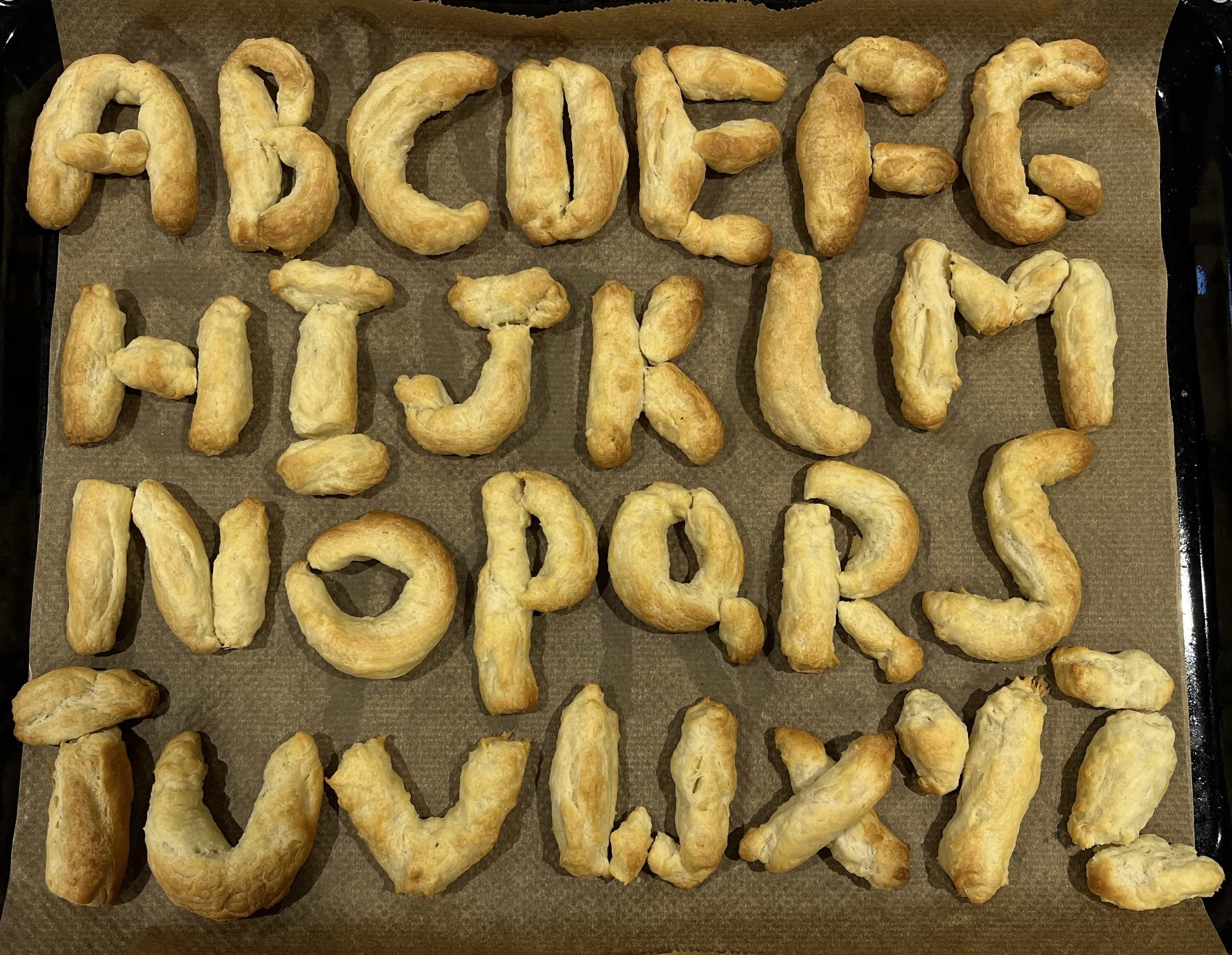
A font inspired by the bakers process:‘Bakers Dozen’ explores the question; “what makes a space, a space?” and more importantly, “What makes a bakery, a bakery?”. The baked goods you find inside, are what solidify the space. Inspired by South-Londons’ ‘Toad Bakery’, I wanted my typeface to highlight the importance of what happens behind the scenes in bakeries. Watching and learning from the processes that can be seen at Toad, I took inspiration and followed similar processes to create my letters. Working with pastry, I individually shaped and baked each letter, just as a baker would shape each of their pastries.